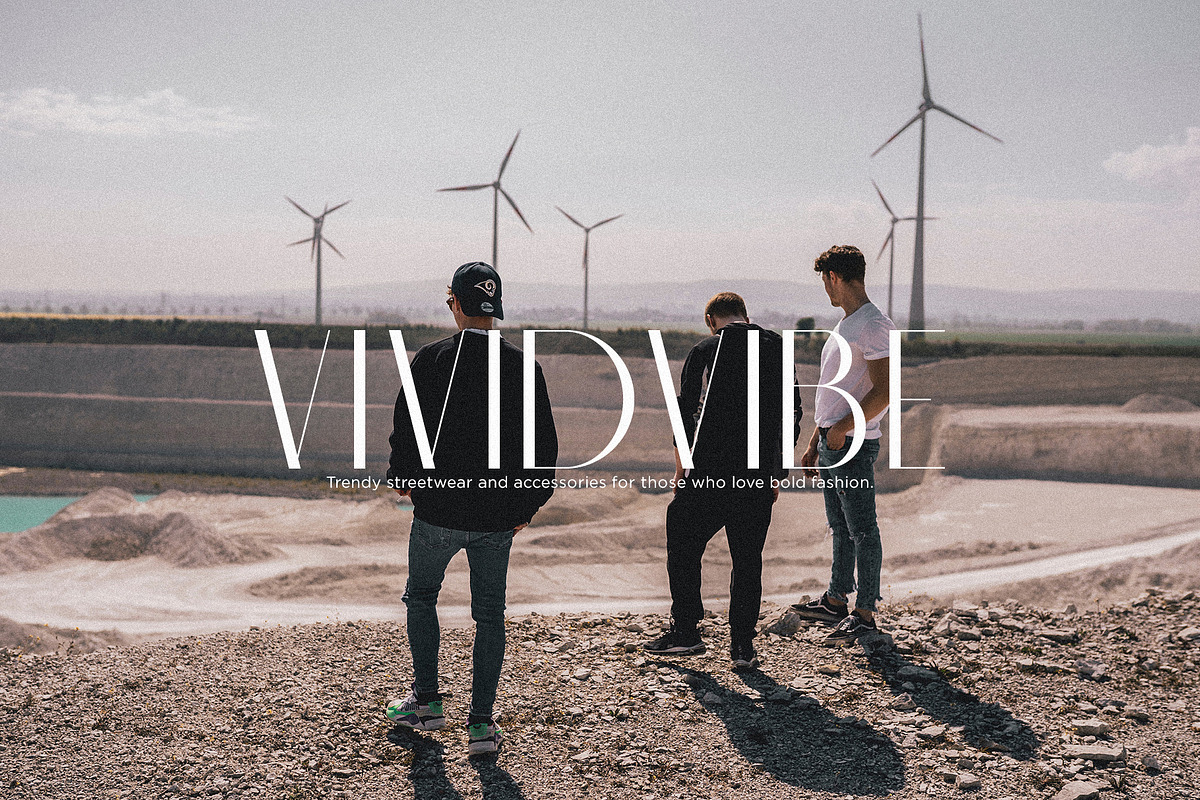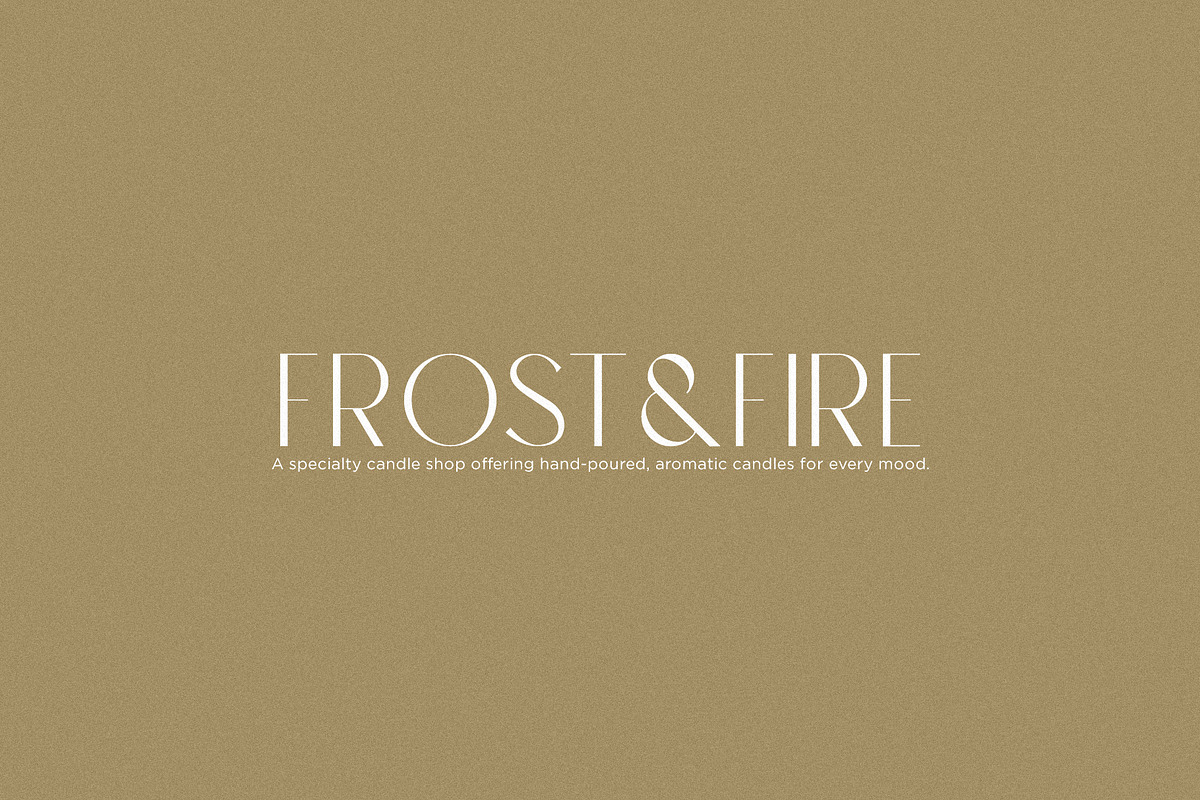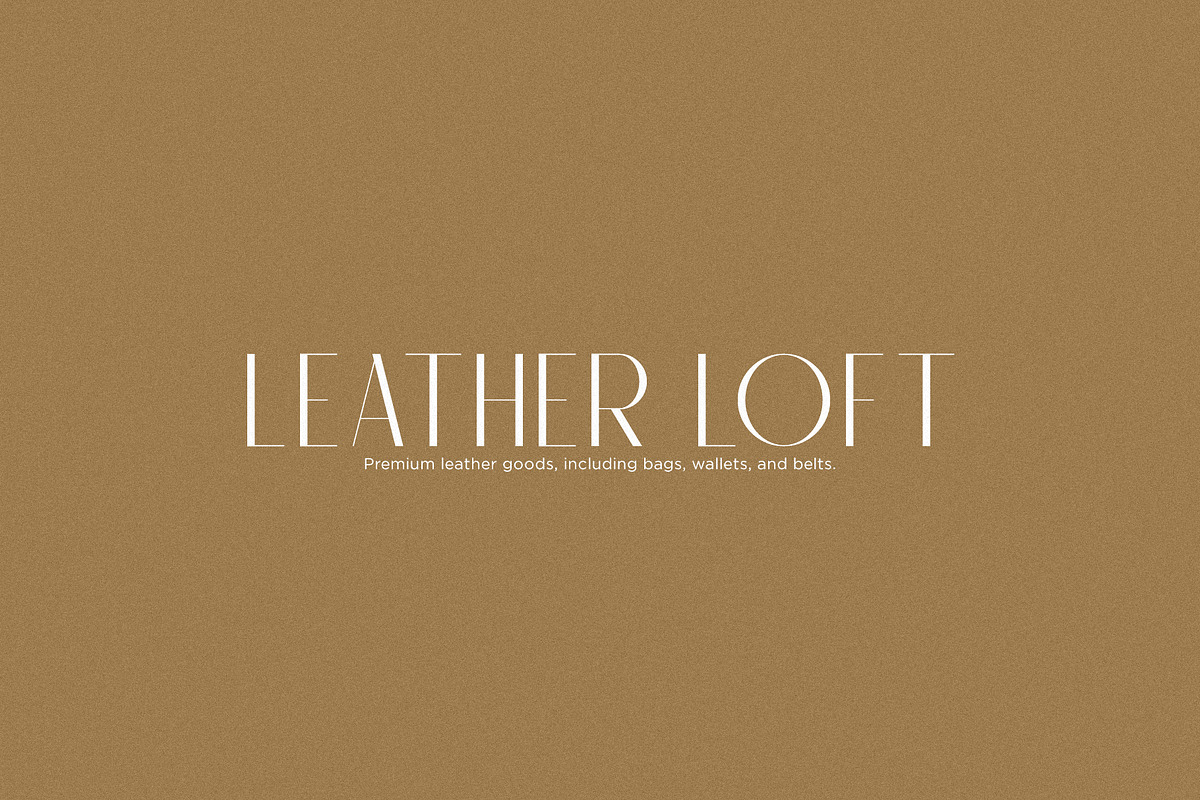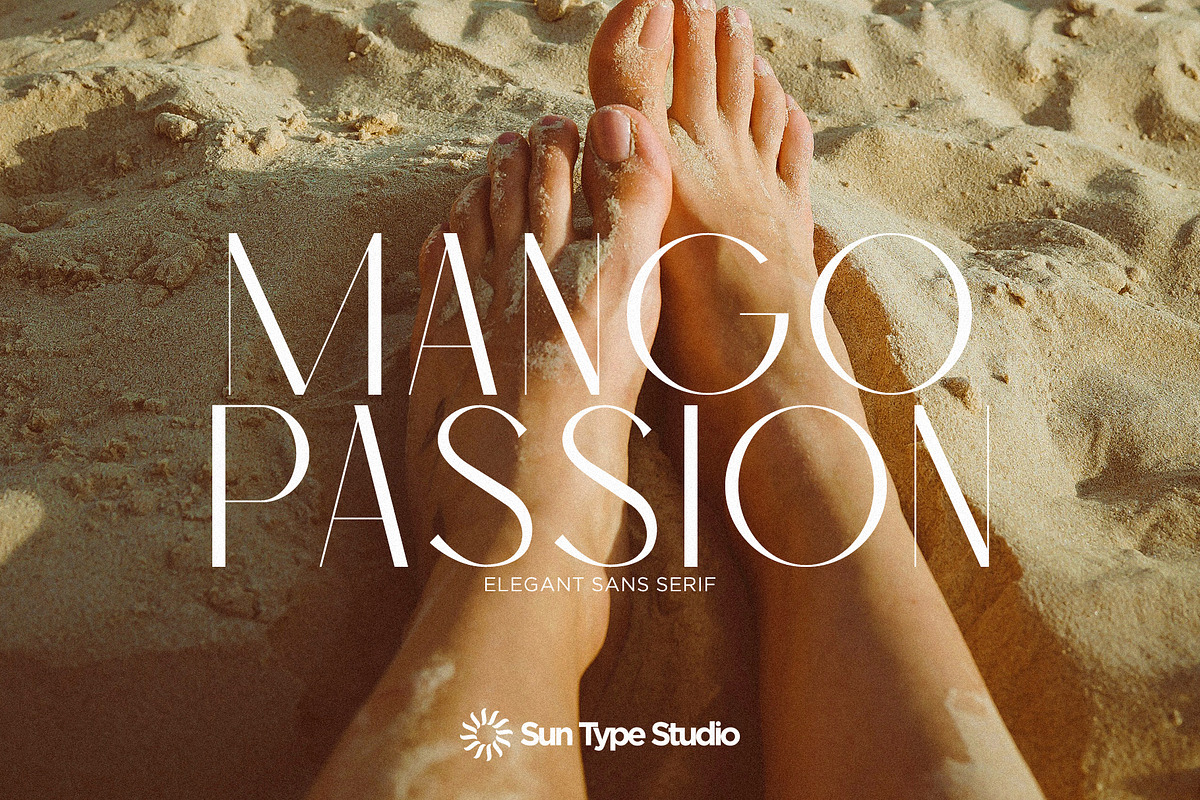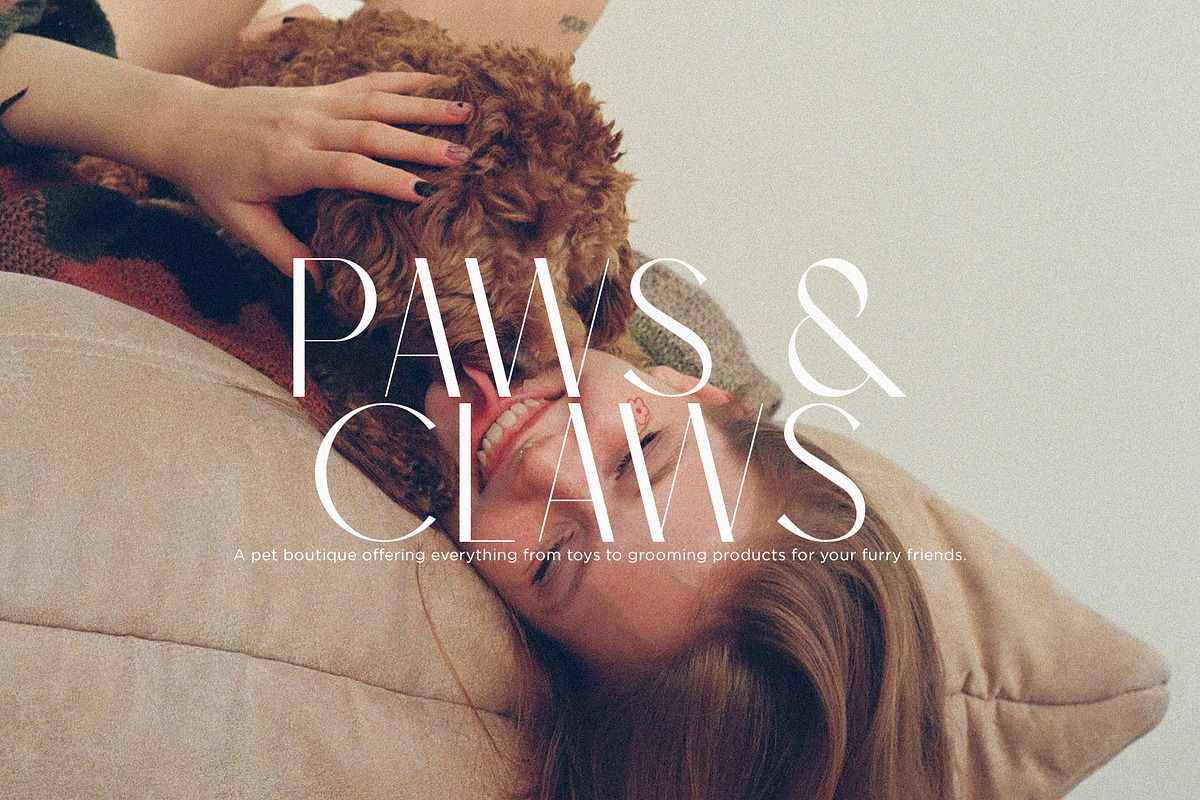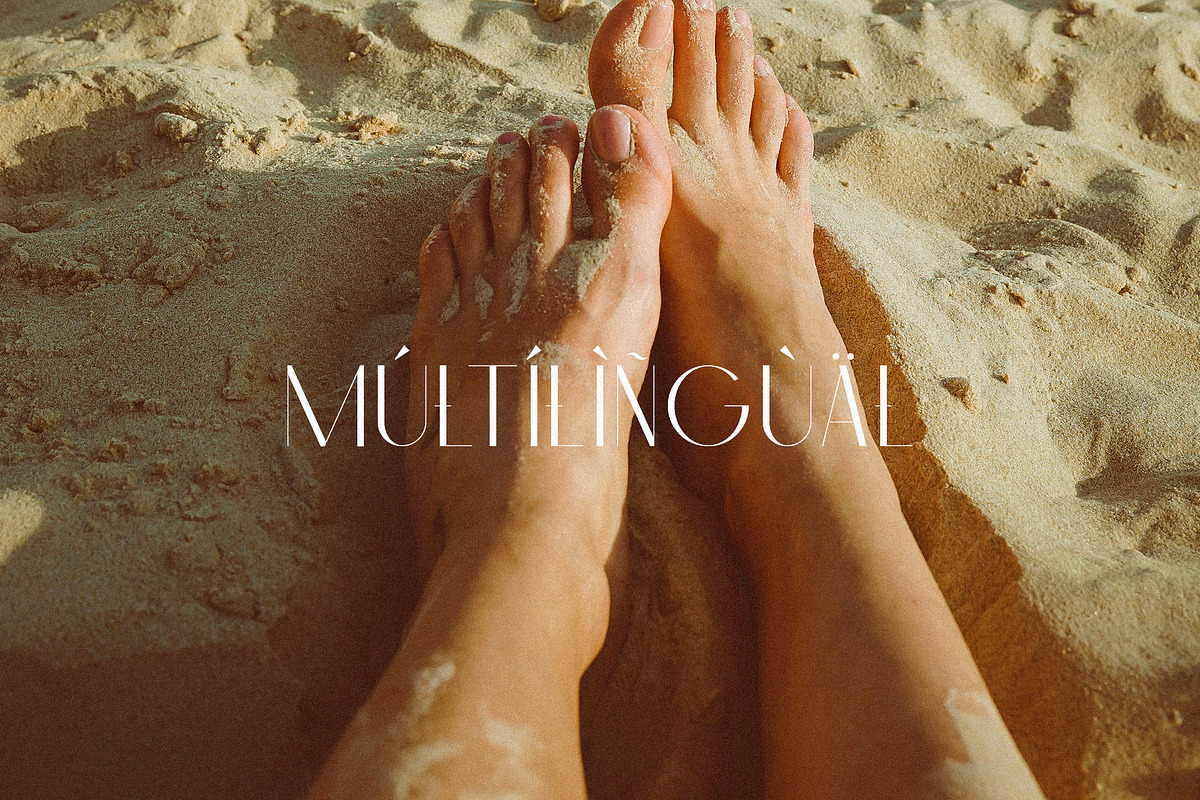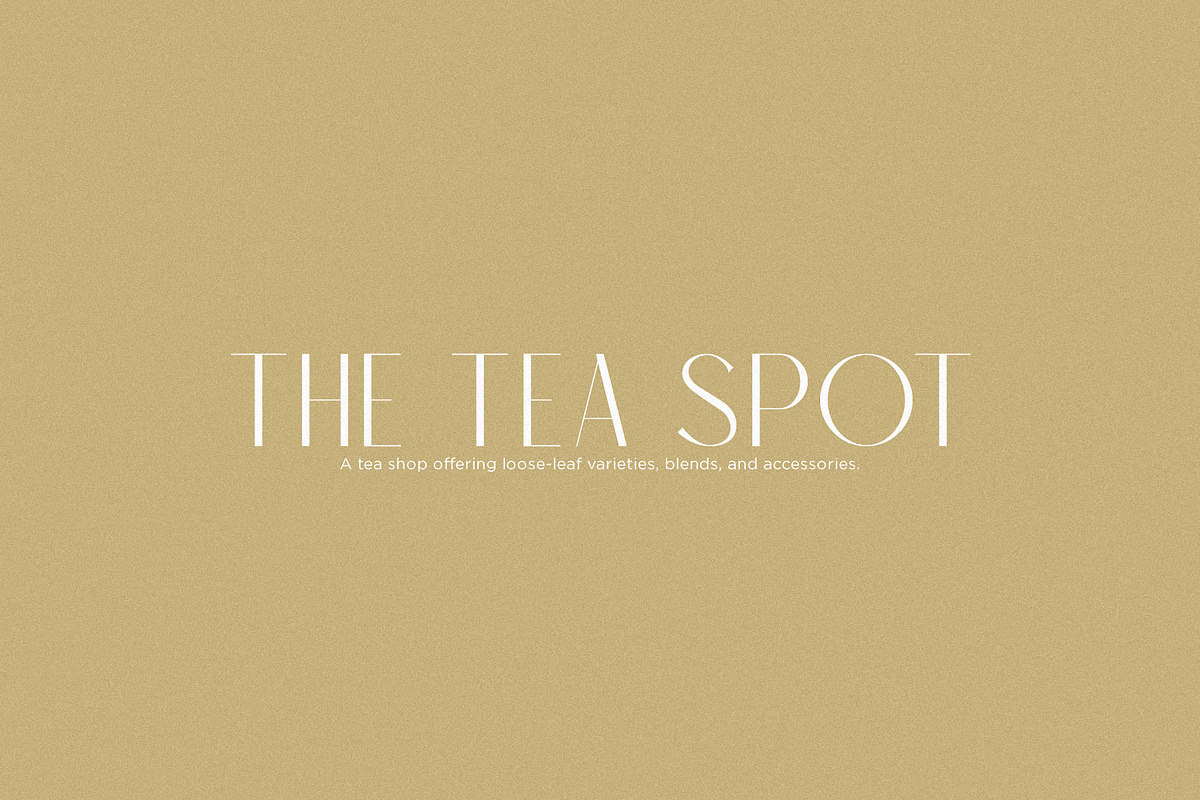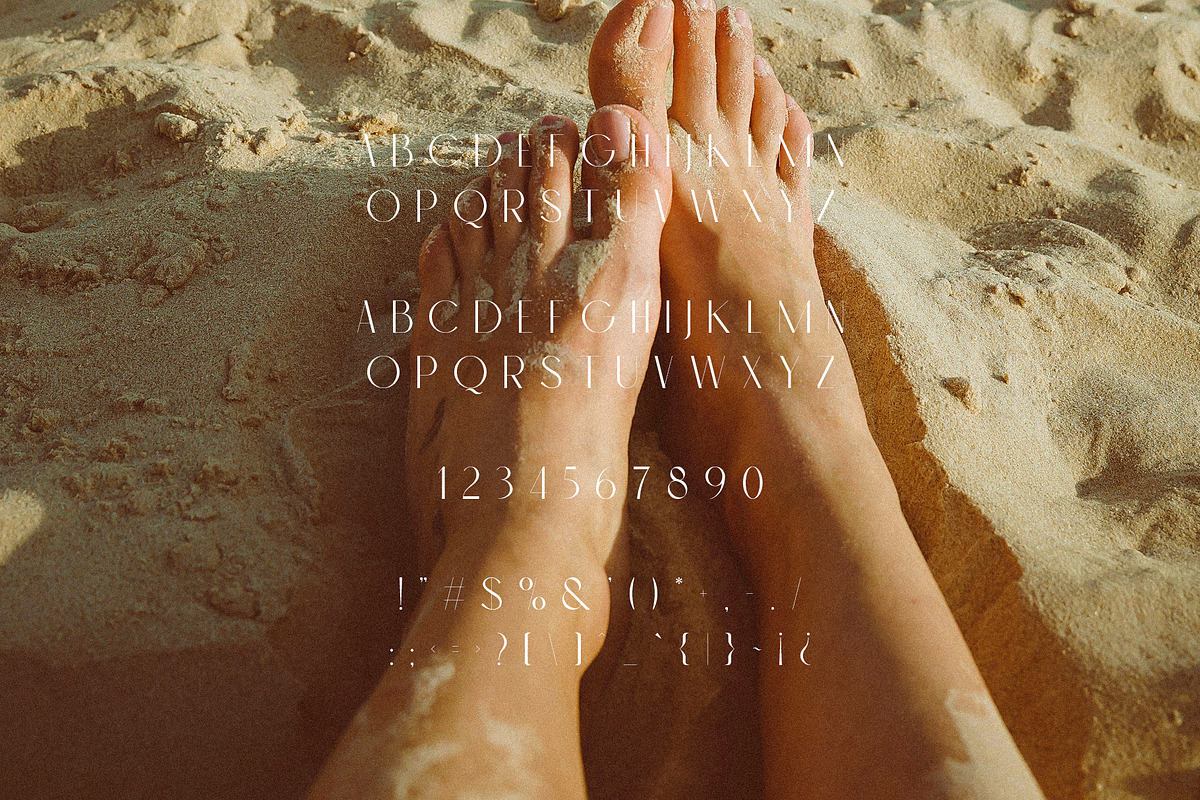
Mango Passion - Elegant Sans Serif
Mango Passion - Elegant Sans Serif is a chic and refined typeface that effortlessly blends modern minimalism with a touch of luxury. Its smooth, clean lines and balanced proportions give it a sophisticated yet approachable feel, making it perfect for a wide range of applications. From upscale branding and editorial layouts to sleek digital designs, Mango Passion brings a sense of timeless elegance to any project. The font’s subtle curves and contemporary flair make it the ideal choice for those seeking a polished, stylish look that feels both fresh and enduring.